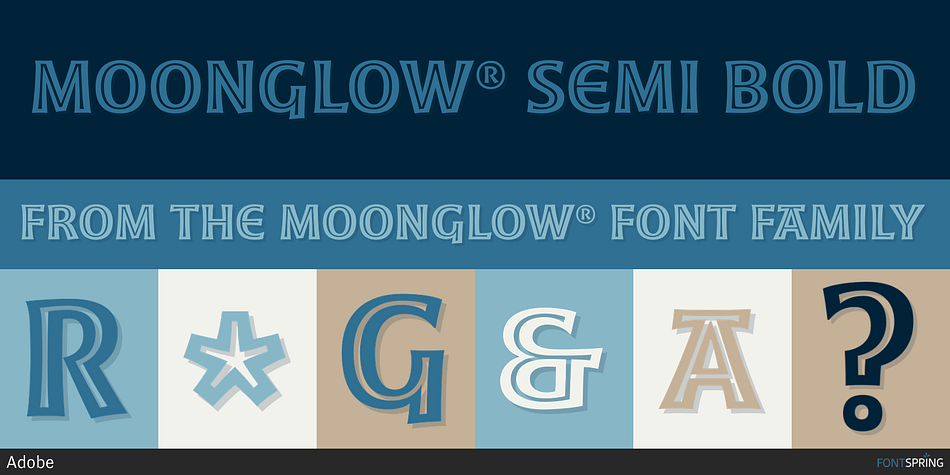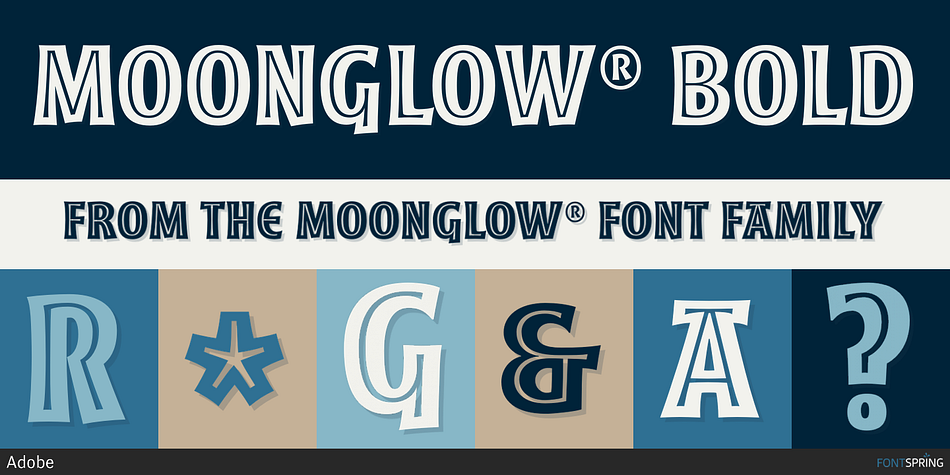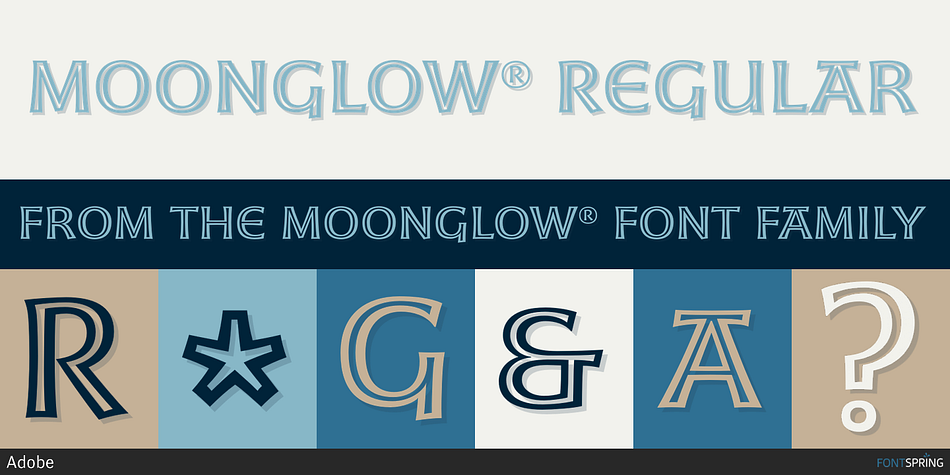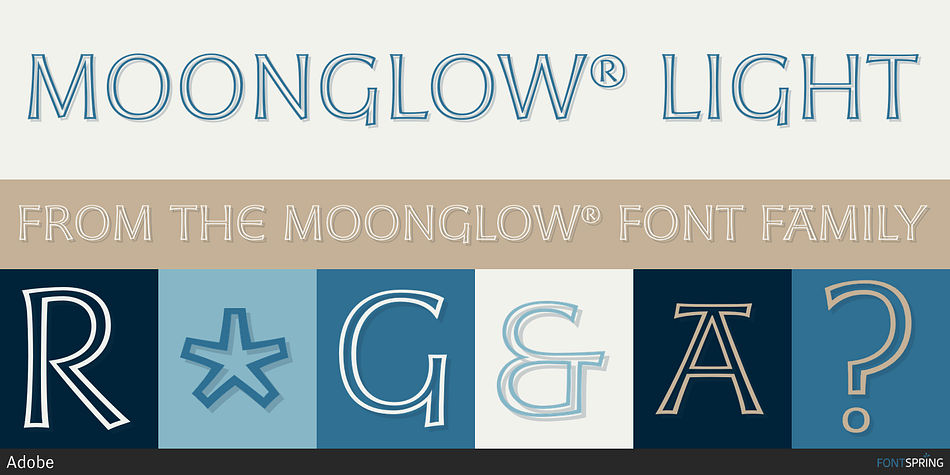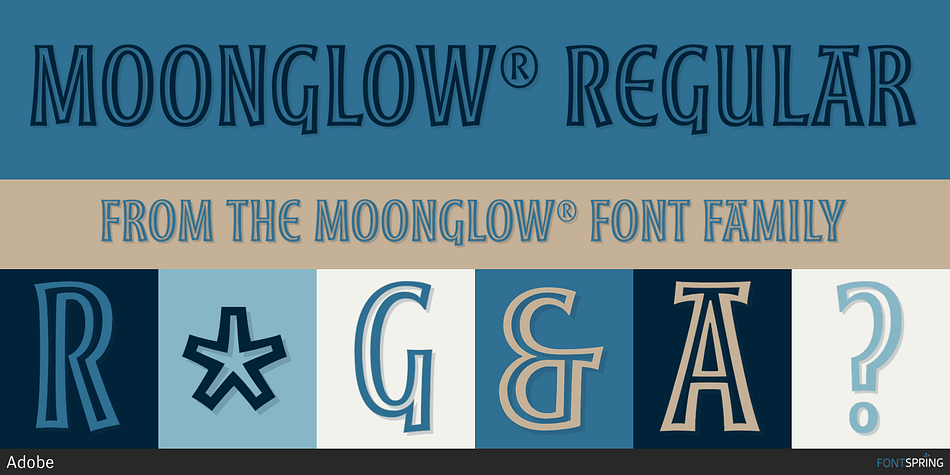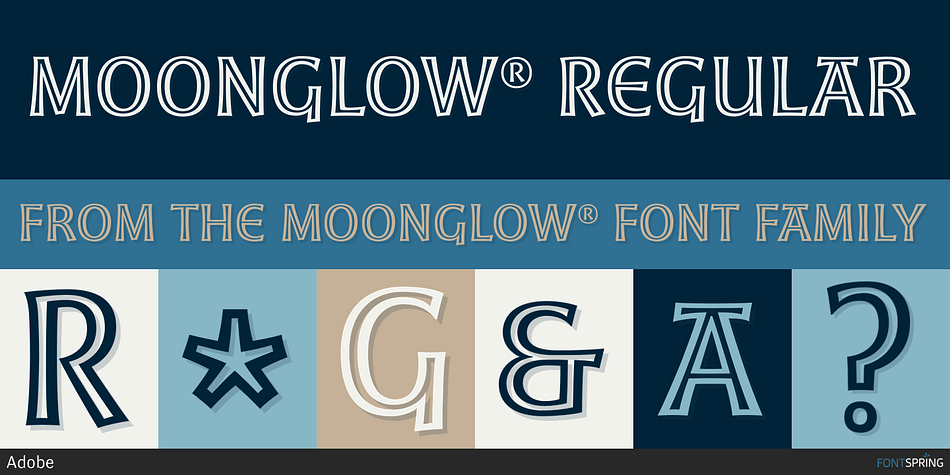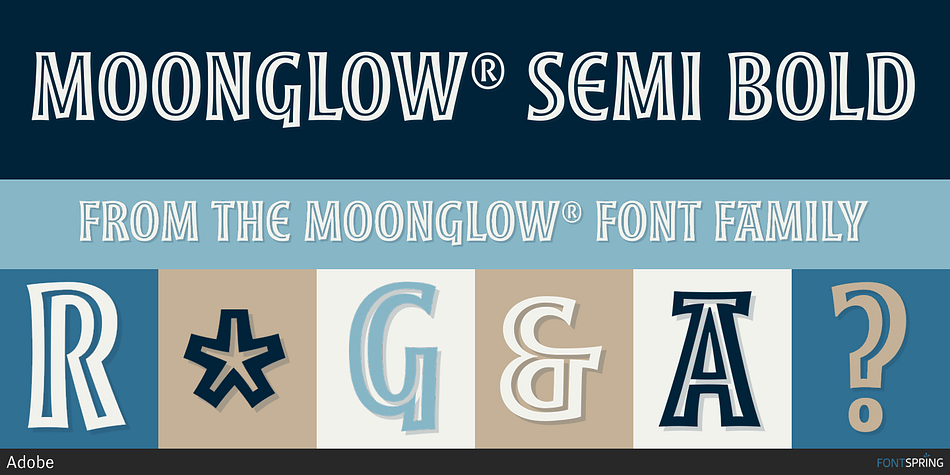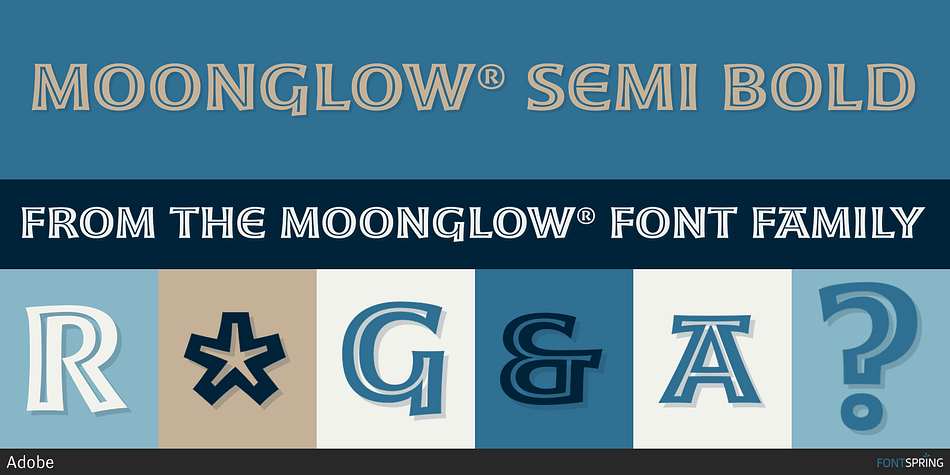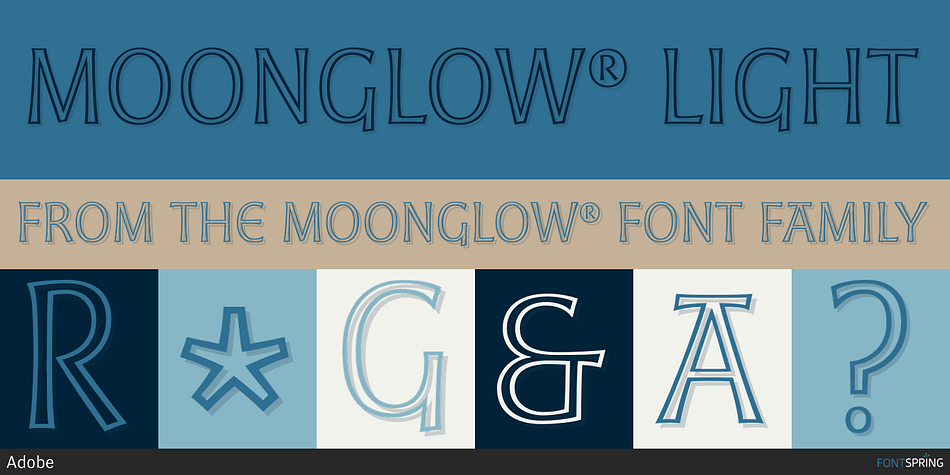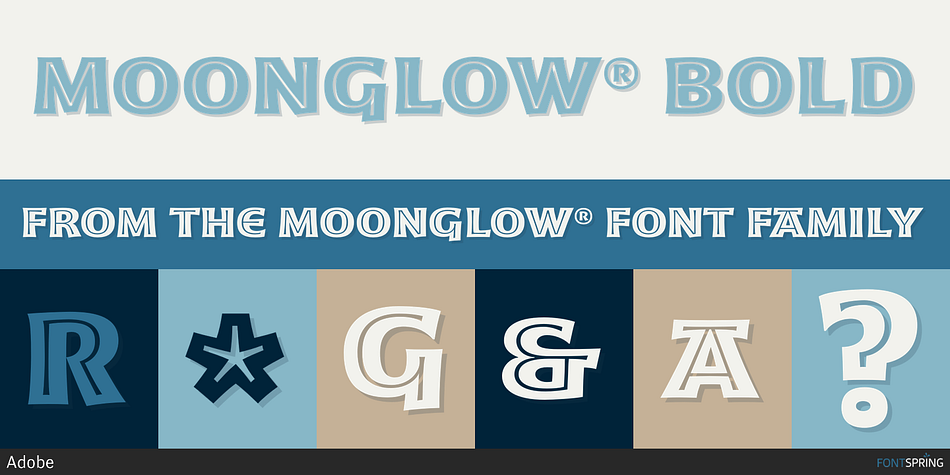
Moonglow® is a display sans font family. This typeface has twelve styles and was published by Adobe.
Moonglow is an all-cap family with a broad range of faces from light to bold, and from condensed to extended. It adds an accent of drama when set with sturdy text faces, and a flash of light and shade when used in short solo settings. Moonglow has its roots in letters that Michael Harvey, the designer, has drawn for inscriptions. Harvey is an accomplished carver of letters in stone and wood. Before carving, he draws letters in outline, increasing the line weights fractionally on one side of the letters to produce the illusion of depth. He also applies this concept to letters drawn for book jackets and logos, where he creates a graphic effect by playing with the contrast between the outline of letters and the forms inside. In the lighter weights of Moonglow, the thin dark outlines define the characters and surround larger interior forms. In the heavier weights, massive dark outlines become the forms that surround slim wisps of characters. Letter proportions vary also, from condensed to extended, adding further graphic possibilities. The name Moonglow evokes the waxing and waning of the moon, and parallels the type family’s range from brightness to darkness.